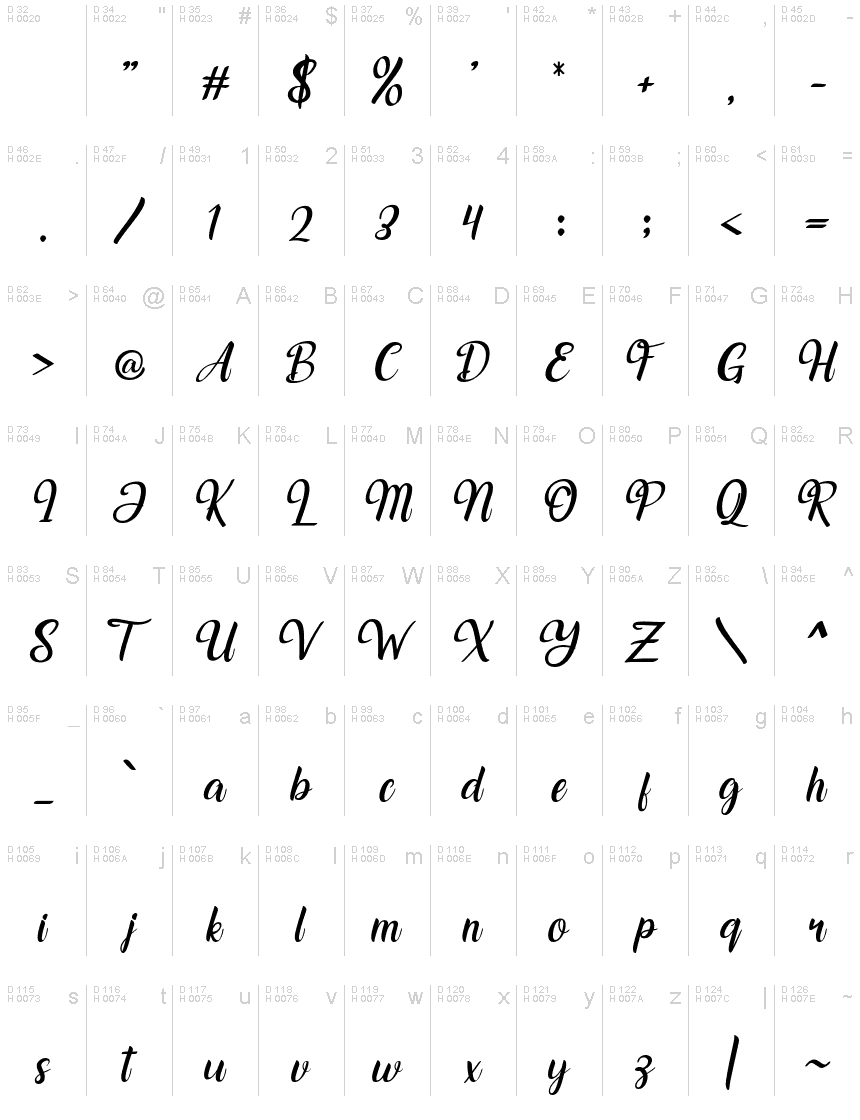
Higher Star Regular
Looking for a font that exudes elegance and sophistication? Look no further than Higher Star, a stunning calligraphy font designed by the talented Nico Muslib. With its fluid strokes and delicate curves, this semi-bold typeface is perfect for adding a touch of refinement to any project. Whether you're designing wedding invitations or creating branding materials for a high-end fashion brand, Higher Star is sure to impress. Its narrow width makes it ideal for headlines and titles, while its smooth lines make it easy to read at smaller sizes. Give your next project the star treatment with Higher Star!
Higher Star